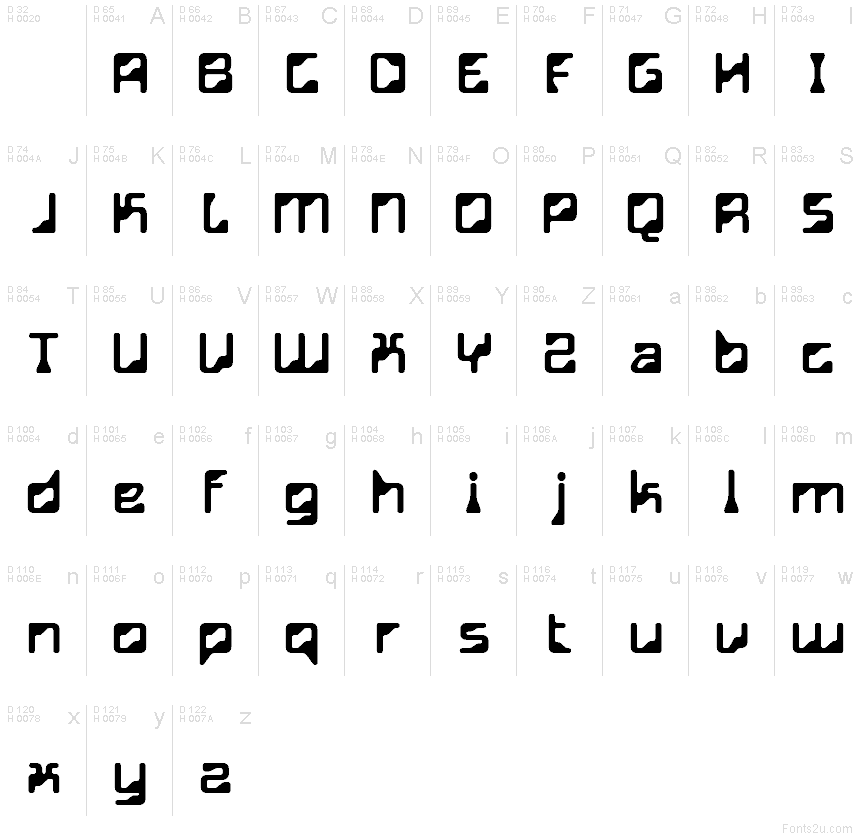
CS Boyka Regular Demo
CS Boyka font by Craft Supply Co. is a free bold expanded retro digital display font. Its defining trait is those chunky, rounded rectangles that swell and scoop like poured resin, creating a soft-tech vibe with crisp, squared rhythm. The strokes stay steady and thick, the corners melt just enough, and the wide stance gives every word a confident, billboard-sized presence.
This free font shines on game titles, synthwave posters, tech branding, event flyers, packaging, and YouTube thumbnails. Using CS Boyka, tight tracking and generous line spacing keep the squishy forms readable at scale. Pair with a simple condensed grotesk to balance its wide, gummy shapes.